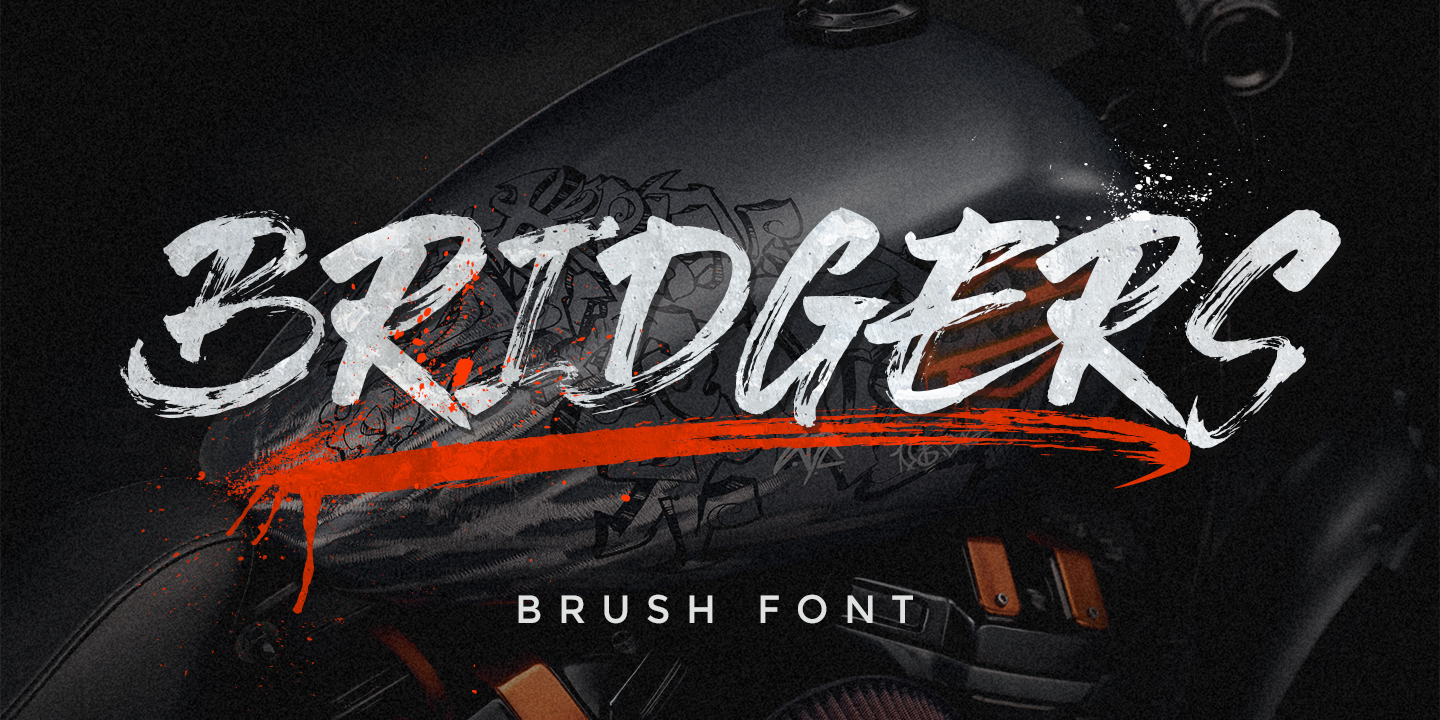
This versatile typeface is perfect for construction companies, architectural firms, engineering projects, infrastructure branding, civil engineering presentations, urban planning documents, bridge construction signage, transportation departments, logistics companies, connection-themed campaigns, networking events, collaboration platforms, team-building materials, and partnership announcements. The font's structural design makes it ideal for industries that build connections and create lasting foundations.
Bridgers Font is exciting because it symbolizes strength, connectivity, and seamless transitions through its robust yet elegant letterforms. The font's architectural inspiration creates a sense of reliability and professional craftsmanship, making it perfect for brands that want to convey trust, stability, and the ability to bring people or ideas together. Its balanced design ensures excellent performance across both digital and print applications.
The Bridgers Font family includes comprehensive weight options: Thin, Light, Regular, Medium, SemiBold, Bold, and Black, each available in standard and italic variations. Additional styles feature Condensed and Extended versions, plus specialized variants with decorative elements that emphasize the font's connection theme, providing designers with extensive flexibility for creating cohesive brand systems.
Build stronger connections with Bridgers Font Free Download – a typeface that represents unity, strength, and professional excellence. Whether you're developing infrastructure branding, architectural presentations, or collaborative platform designs, this font delivers the structural integrity and visual impact your projects need while maintaining outstanding legibility and timeless professional appeal across all media formats.